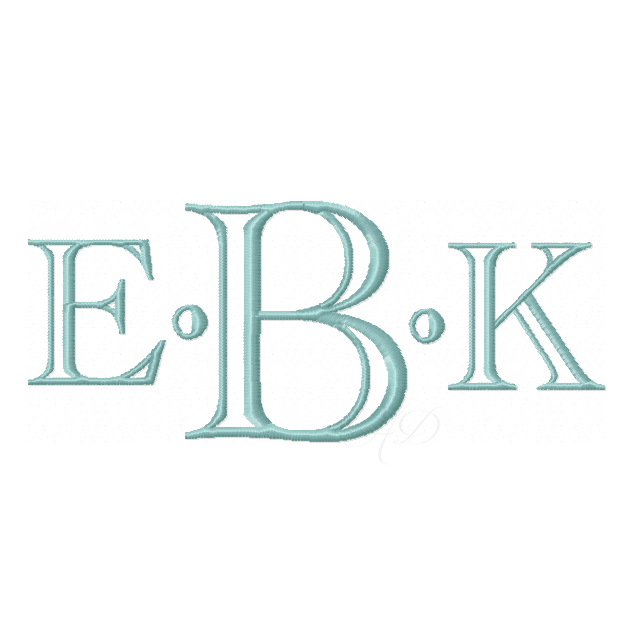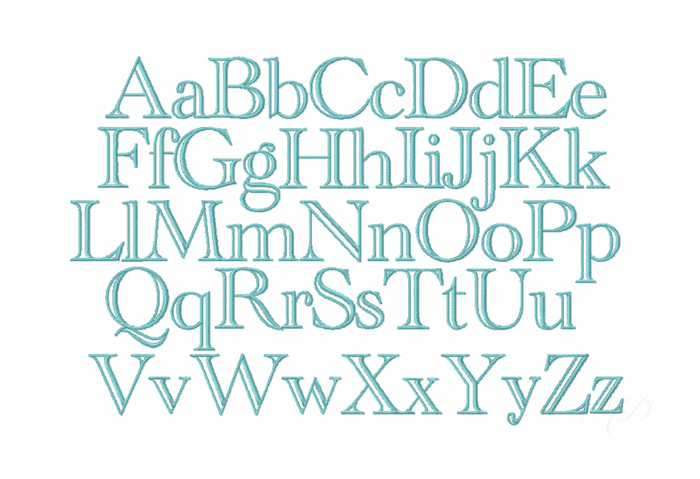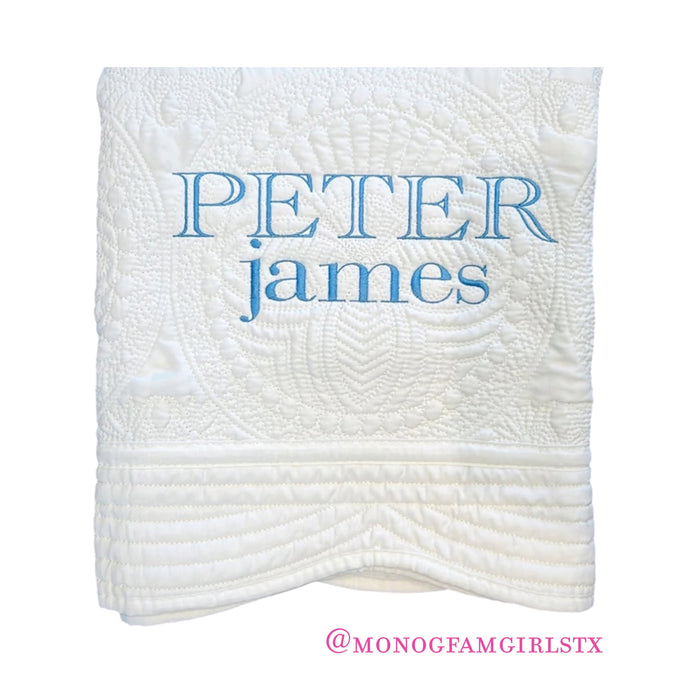
Ryan Open Satin Small Embroidery Font Package
Unlock your creativity with the Ryan Open Satin Small Embroidery Font Package, designed for sophisticated monogramming. This font set features upper and lowercase letters, along with coordinating dots, all tailored to fit within a 4x4 hoop. Available sizes include half-inch, 1”, 1.5”, 2”, 2.5”, and 3”. Perfect for any DIY enthusiast looking to elevate their crafting.